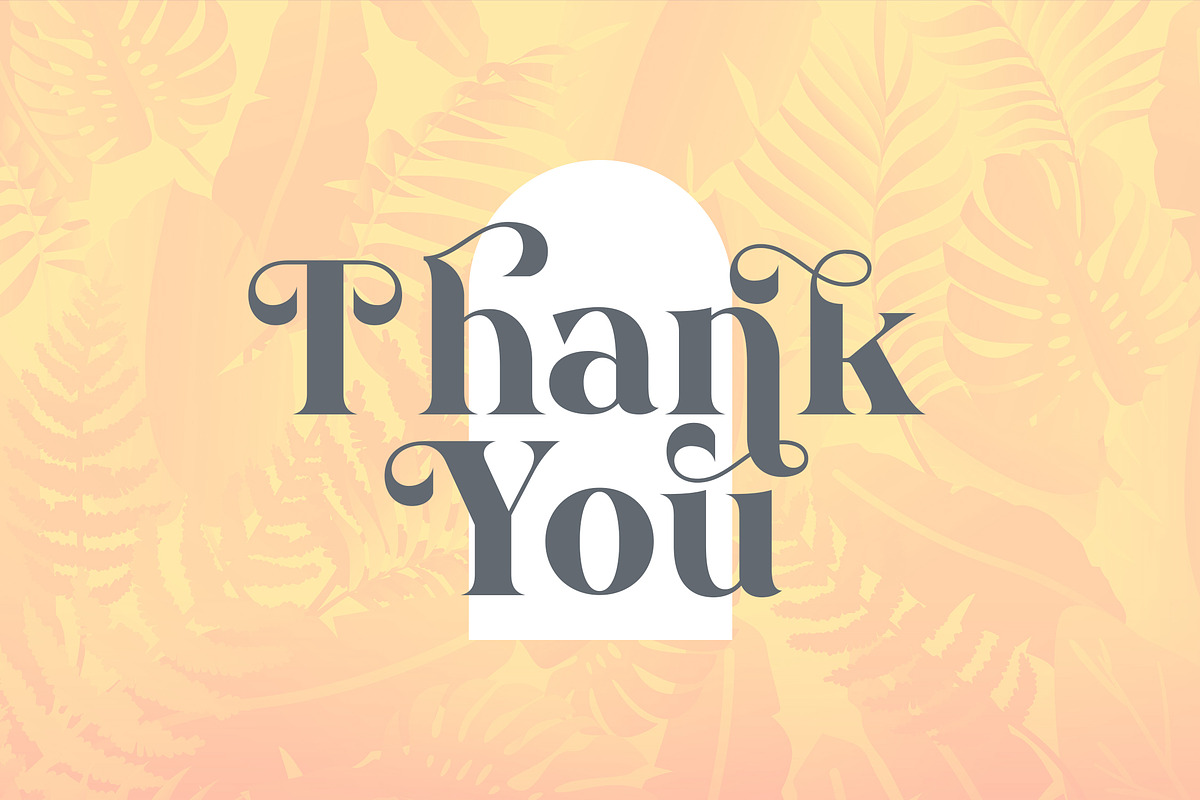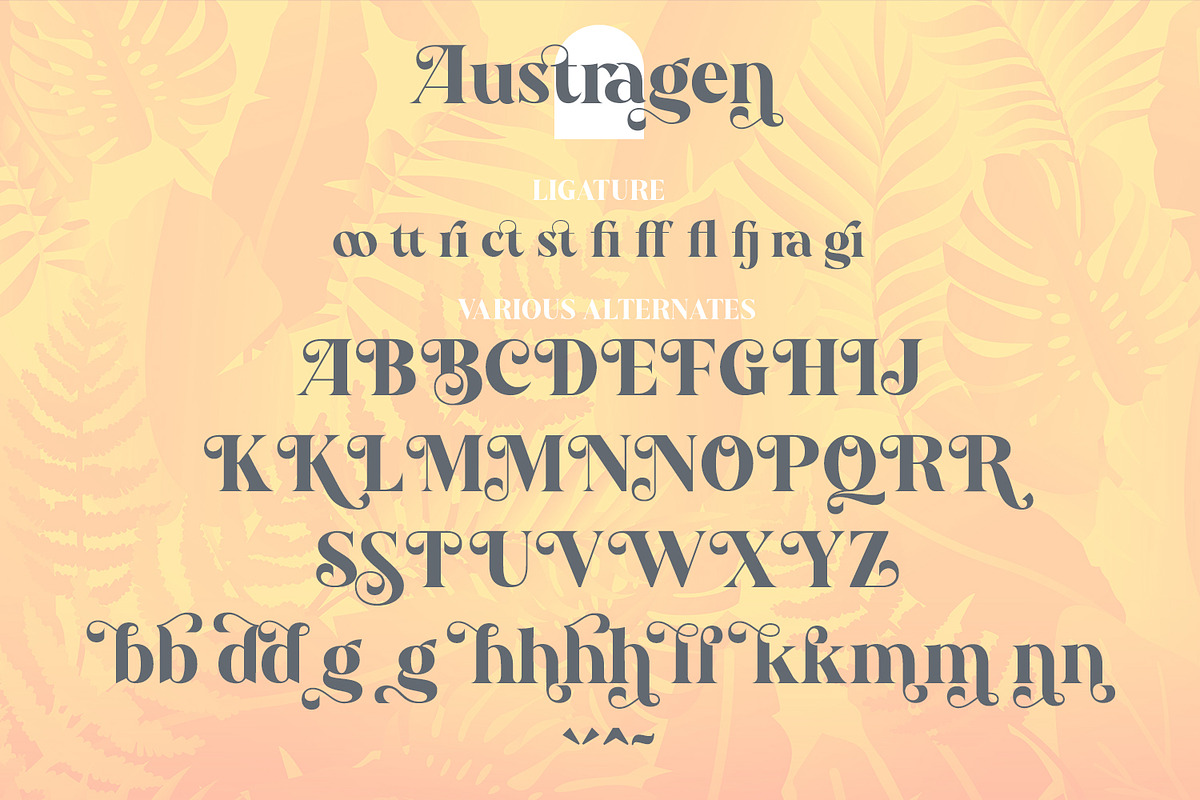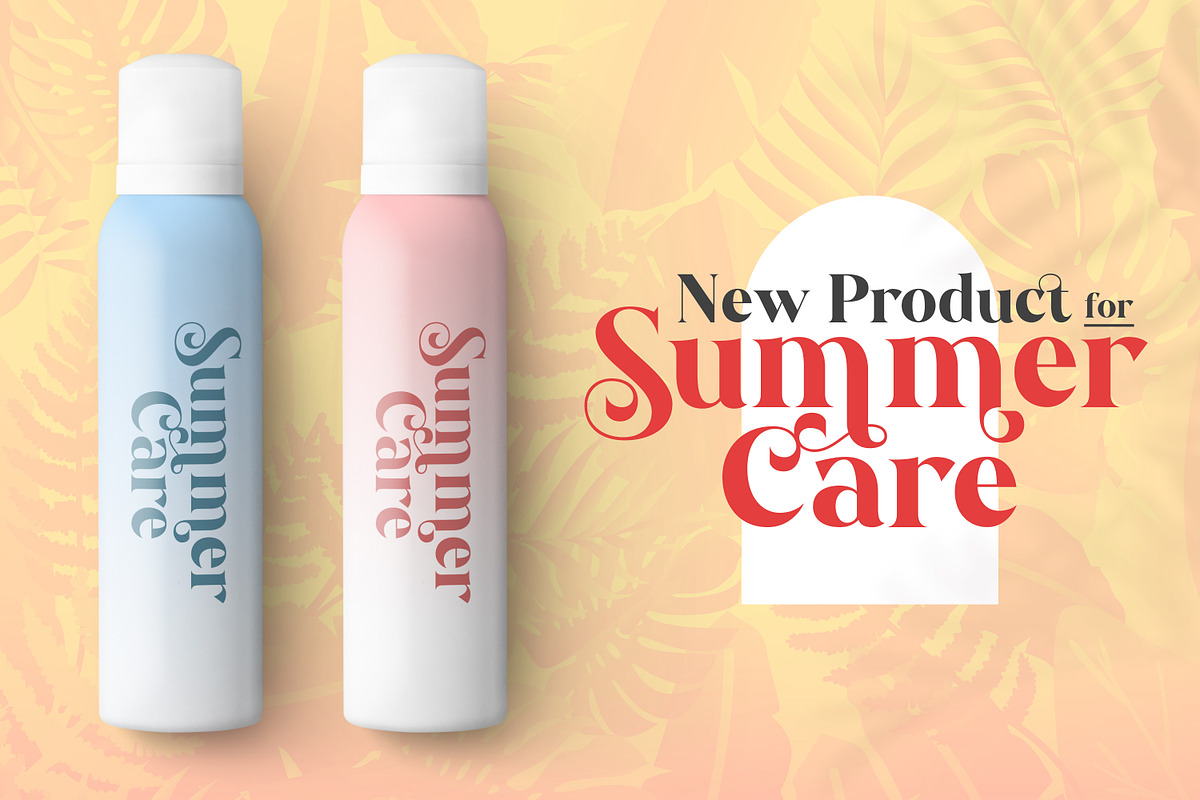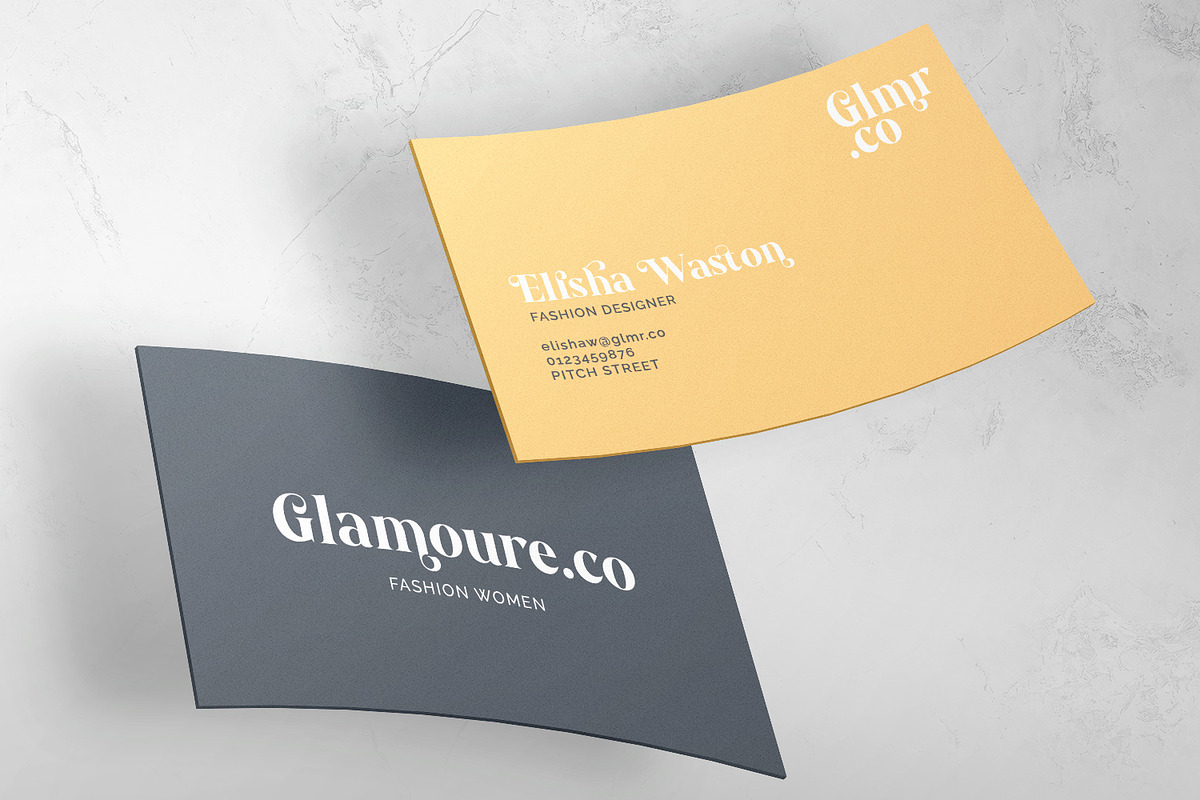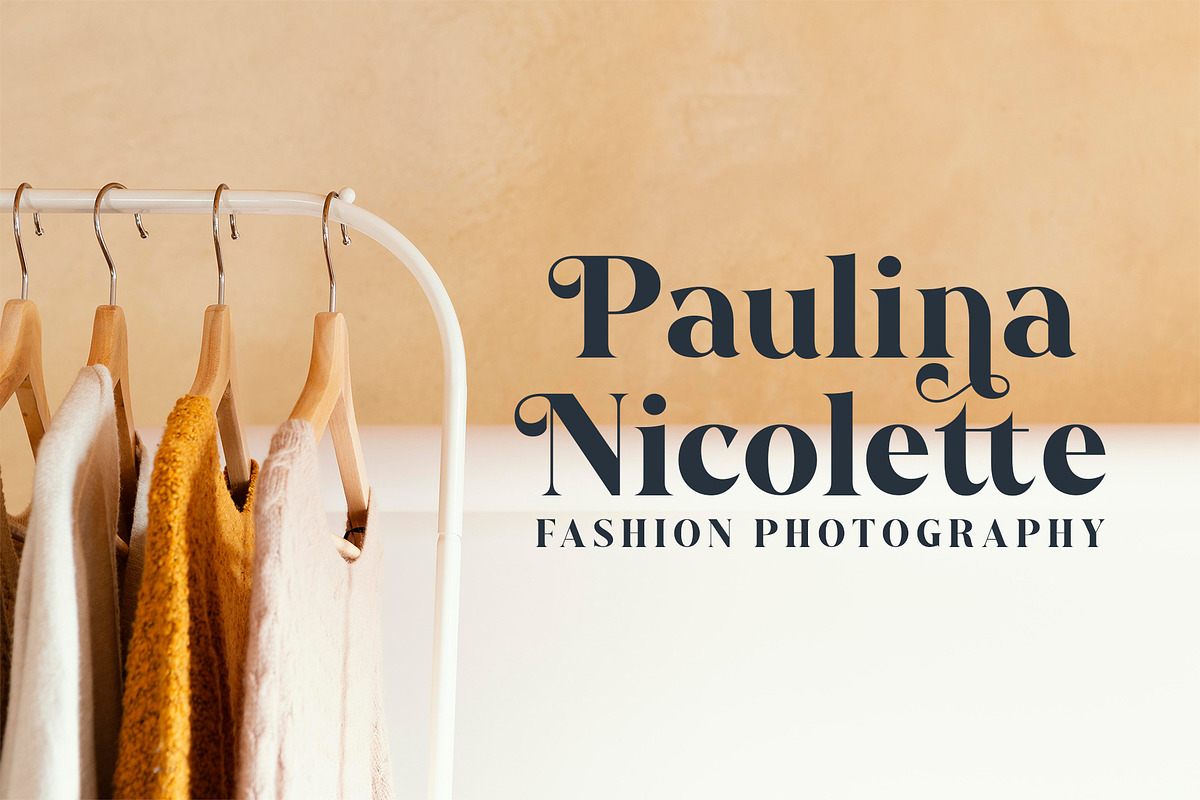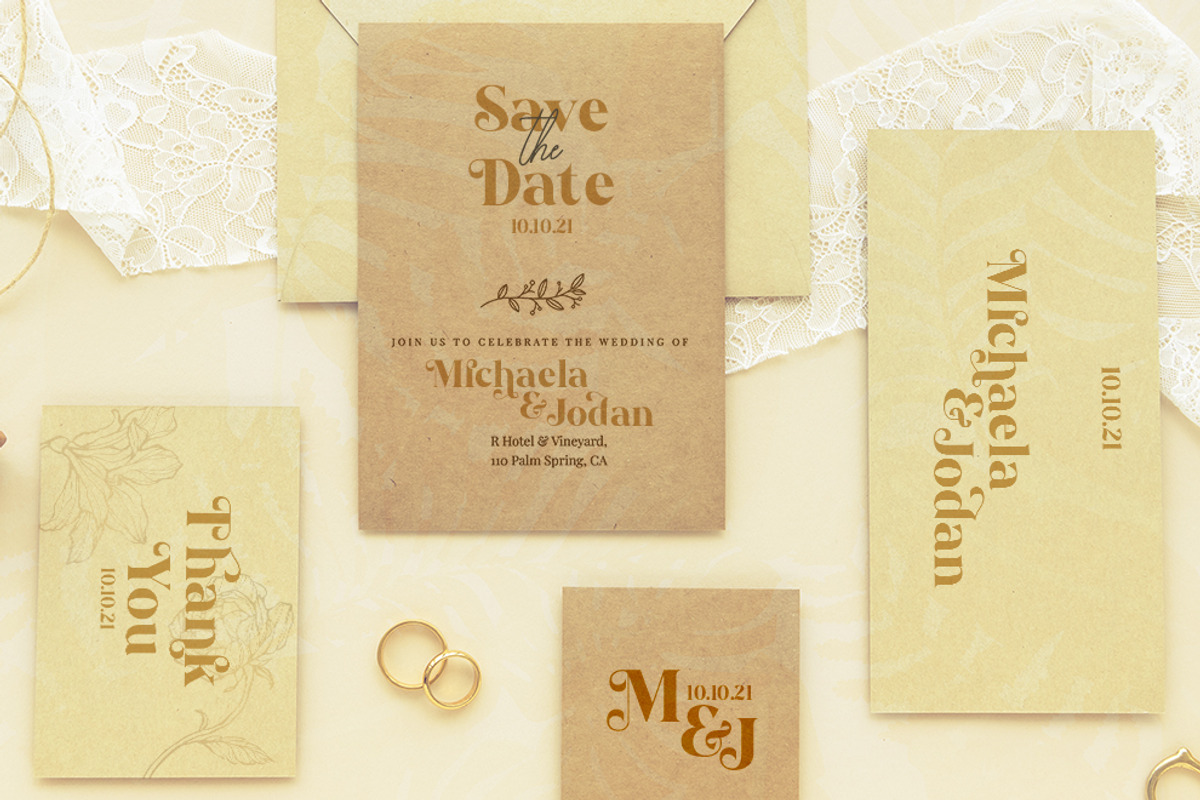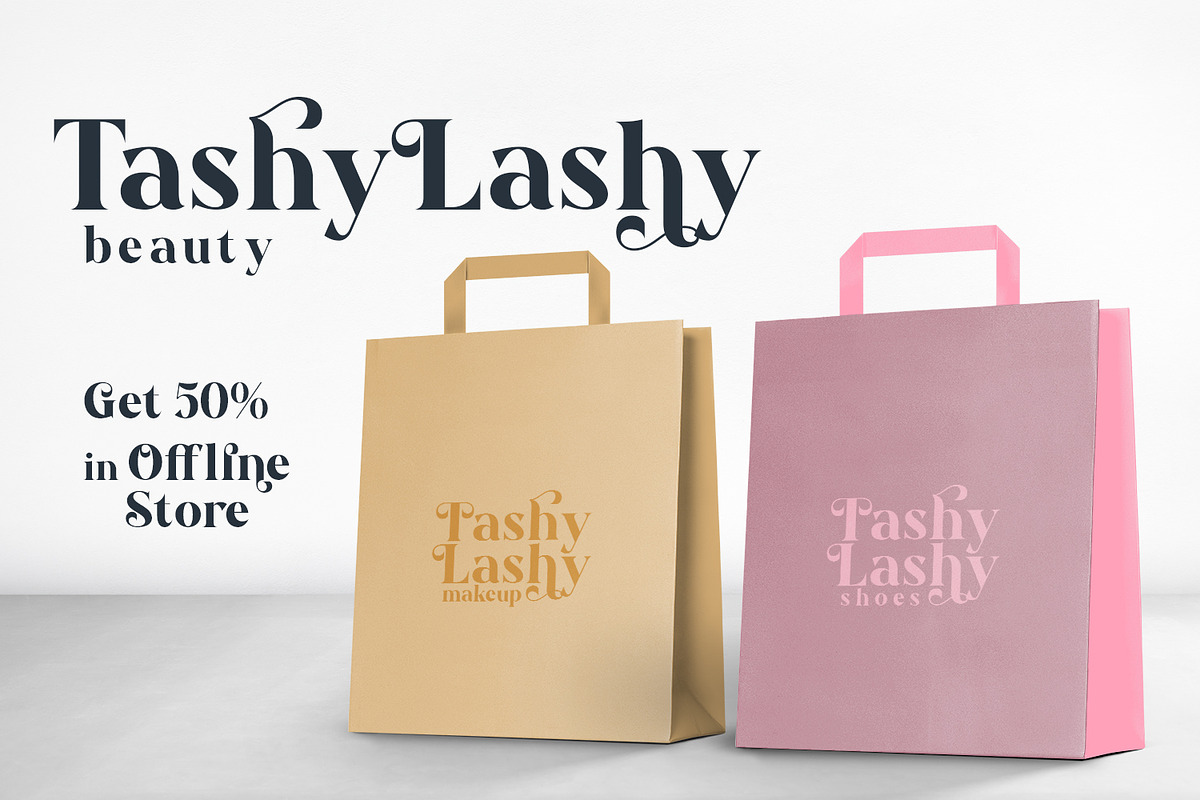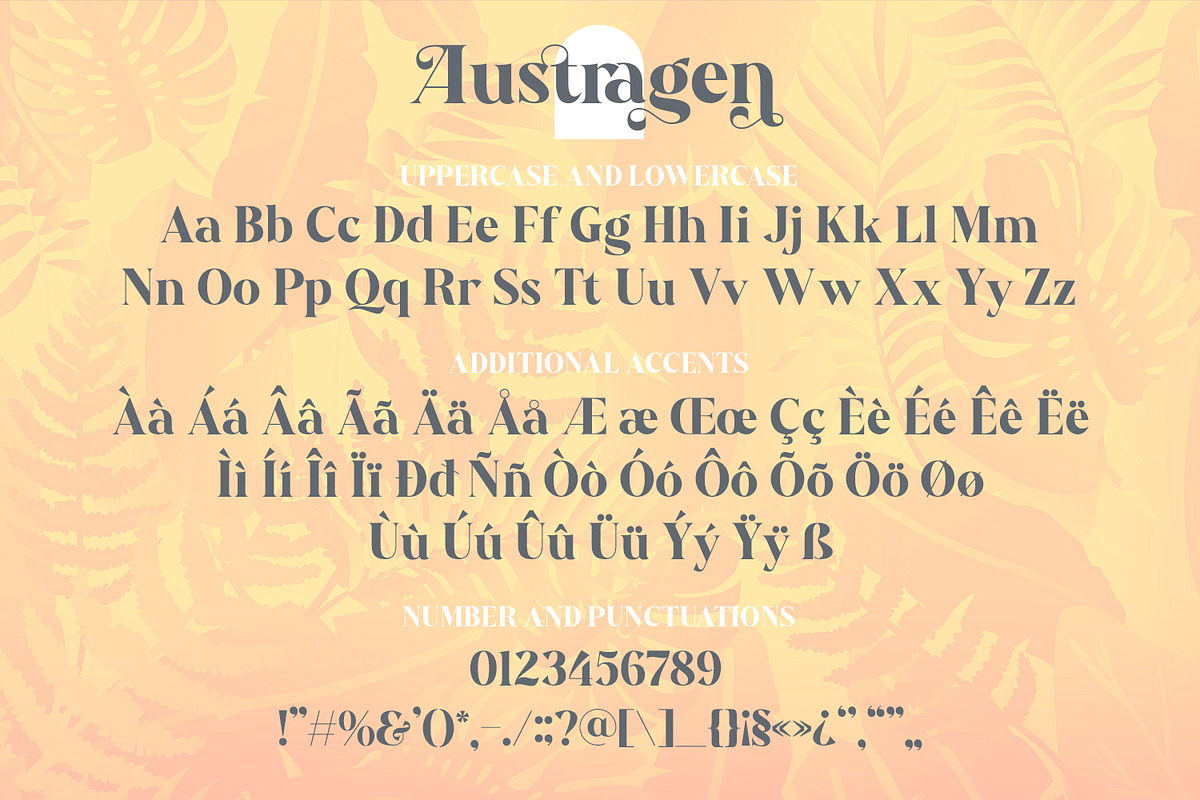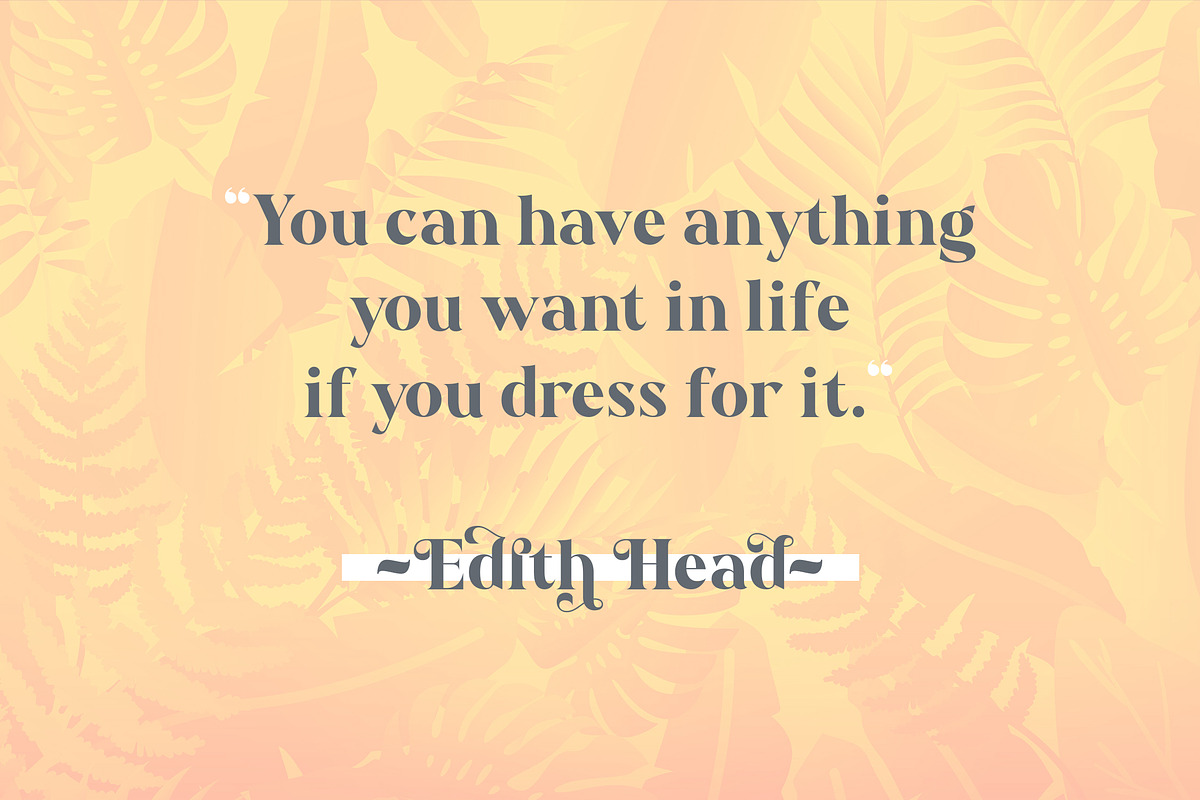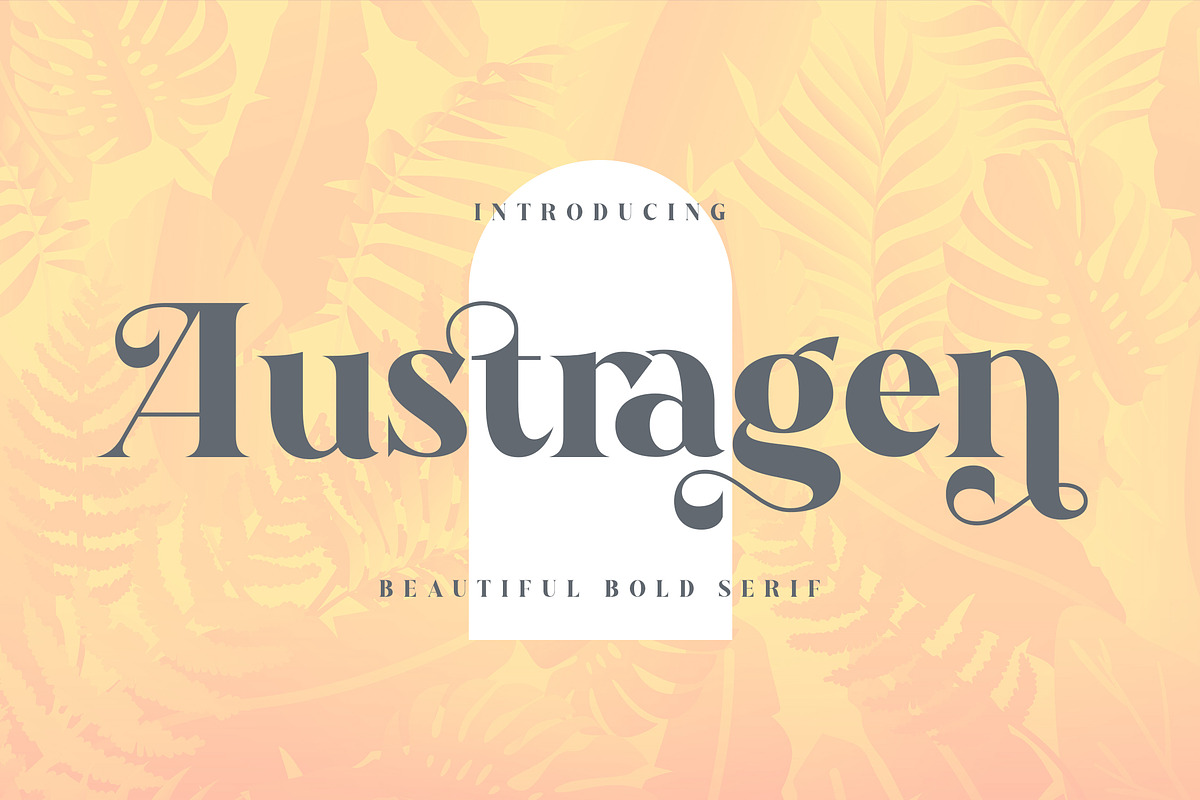
Austragen - Beautiful Bold Serif
Introducing Austragen - Beautiful Bold Serif inspired by the famous minimalist logo, perfect for the purposes of designing templates, brochures, videos, advertising branding, logos and more. Perfect for adding a unique twist to word-mark logos, monograms or pull quotes. Austragen has 11 unique ligatures and 50 Alternate Glyphs as well as numbers and punctuation making it super fantastic.
Like all of my fonts it is inspired by lettering from the good old past, but it still has a strong modern appearance. Its wide range of stylistic alternates allows versatile design options and works perfectly for headlines, logos, posters, packaging,,coffee shops, restaurants, magazine's headers, signs or gift/post cards,cafe's and weddings.